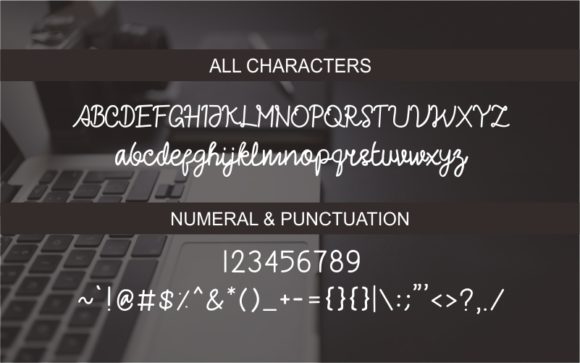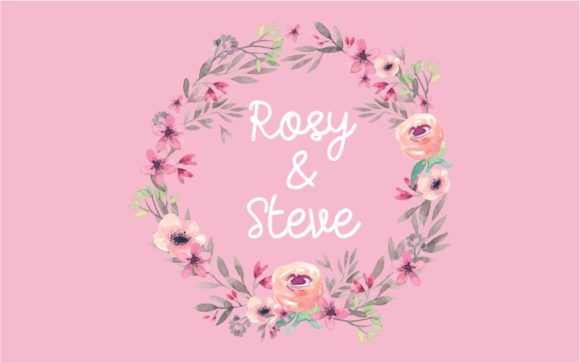
The Power of Elabor Font: Unlocking Creative Potential
Have you ever been in the middle of a design project, and suddenly, you’re stuck on finding the perfect font? I recall a recent experience where a client requested a banner design with a “friendly yet professional” vibe. I scoured through countless font libraries, but nothing seemed to fit the bill. That’s when I stumbled upon the Elabor font, and it was love at first sight! 💕
An Honest Review of Elabor Font
- ✨ The Elabor font has a natural, effortless look that brings a unique visual power to designs.
- ✅ Its script style is versatile and works well for various applications, including banners, businesses, advertising, websites, and more.
- 💫 The font’s flowy and connected letters create a beautiful, cohesive look that’s perfect for titles, headings, and short paragraphs.
While the Elabor font is an excellent choice, there are a few things to keep in mind:
- ⚠️ Some users might find the font’s script style a bit challenging to read in large blocks of text.
- 🤔 The font’s uniqueness might not make it the best fit for very formal or traditional designs.
The Backstory of Elabor Font
The Elabor font was designed with the intention of creating a unique, versatile script font that would bring a touch of elegance and sophistication to various design projects. While the actual design process and inspiration behind the font are unclear, it’s evident that the font’s creator aimed to craft a beautiful, natural-looking script that would resonate with designers and creatives.
| What type of projects is the Elabor font best suited for? | The Elabor font is versatile and can be used for various projects, including banners, businesses, advertising, websites, covers, and more. |
| Is the Elabor font suitable for large blocks of text? | While the Elabor font is beautiful, it might not be the best choice for large blocks of text due to its script style. |
| Does the Elabor font come with any special features? | Yes, the Elabor font comes with OpenType features, glyphs, and stylistic alternates, allowing for greater creative control. |
In conclusion, the Elabor font is an excellent choice for designers, crafters, and creative hobbyists looking to add a touch of elegance and sophistication to their projects. With its natural, effortless look and versatile style, it’s perfect for a wide range of applications. By understanding the font’s features, quirks, and best uses, you can unlock its full creative potential and take your designs to the next level.